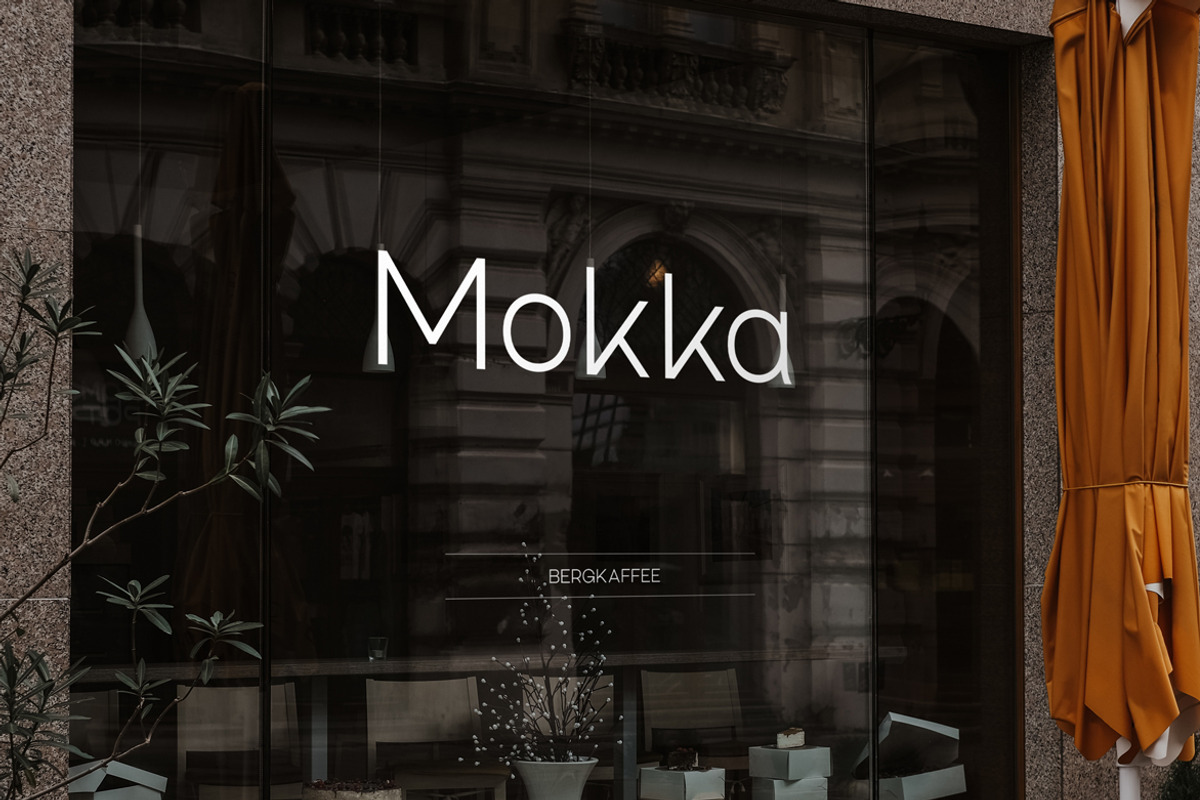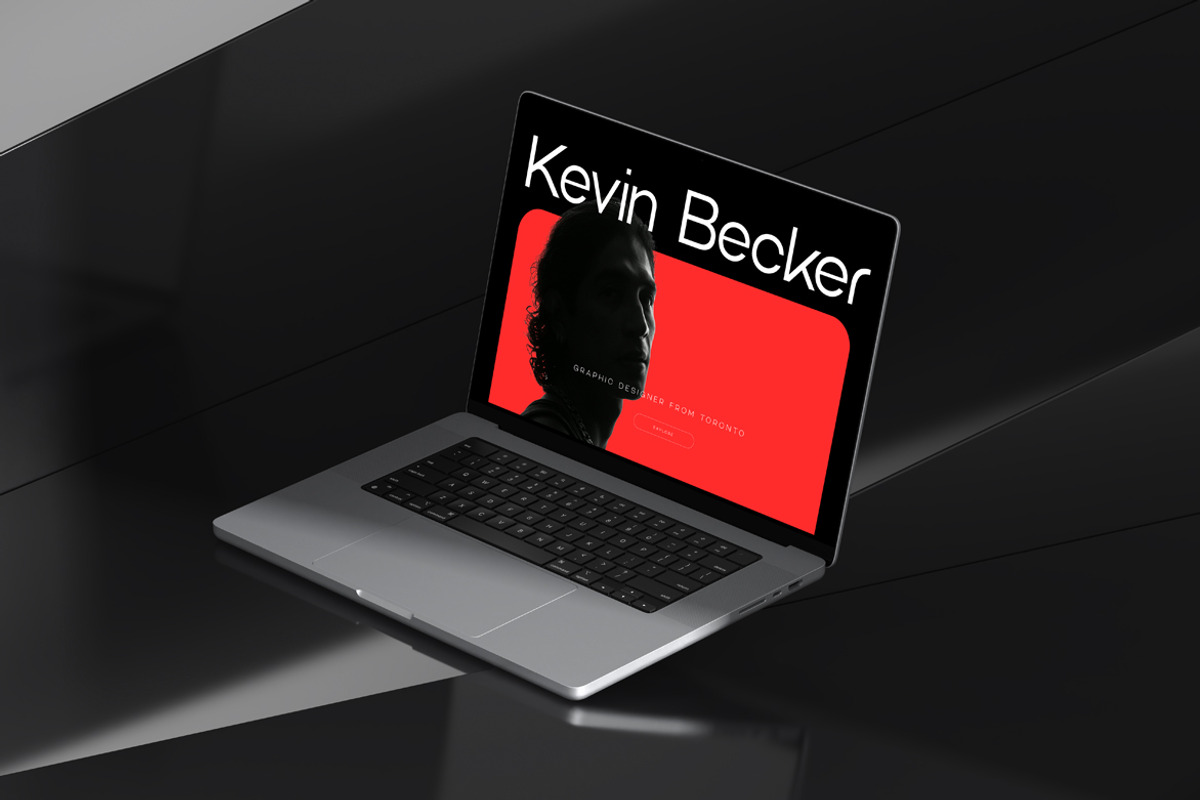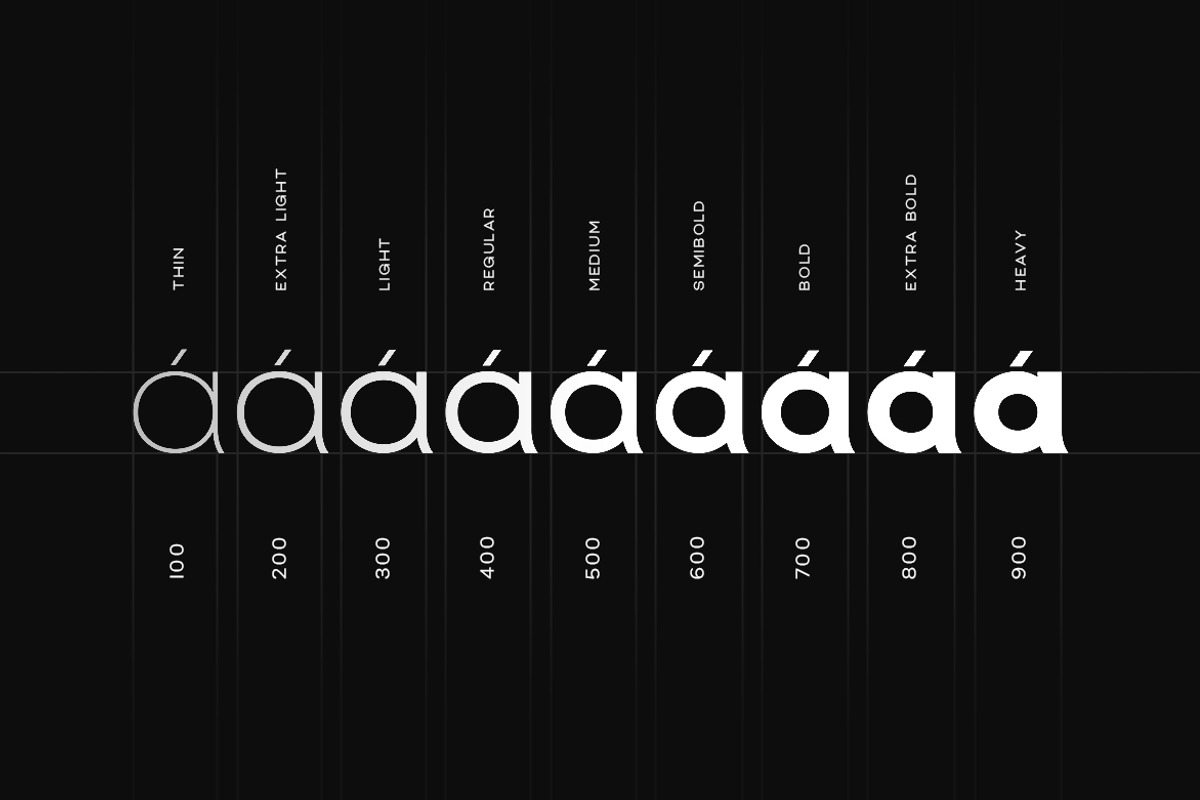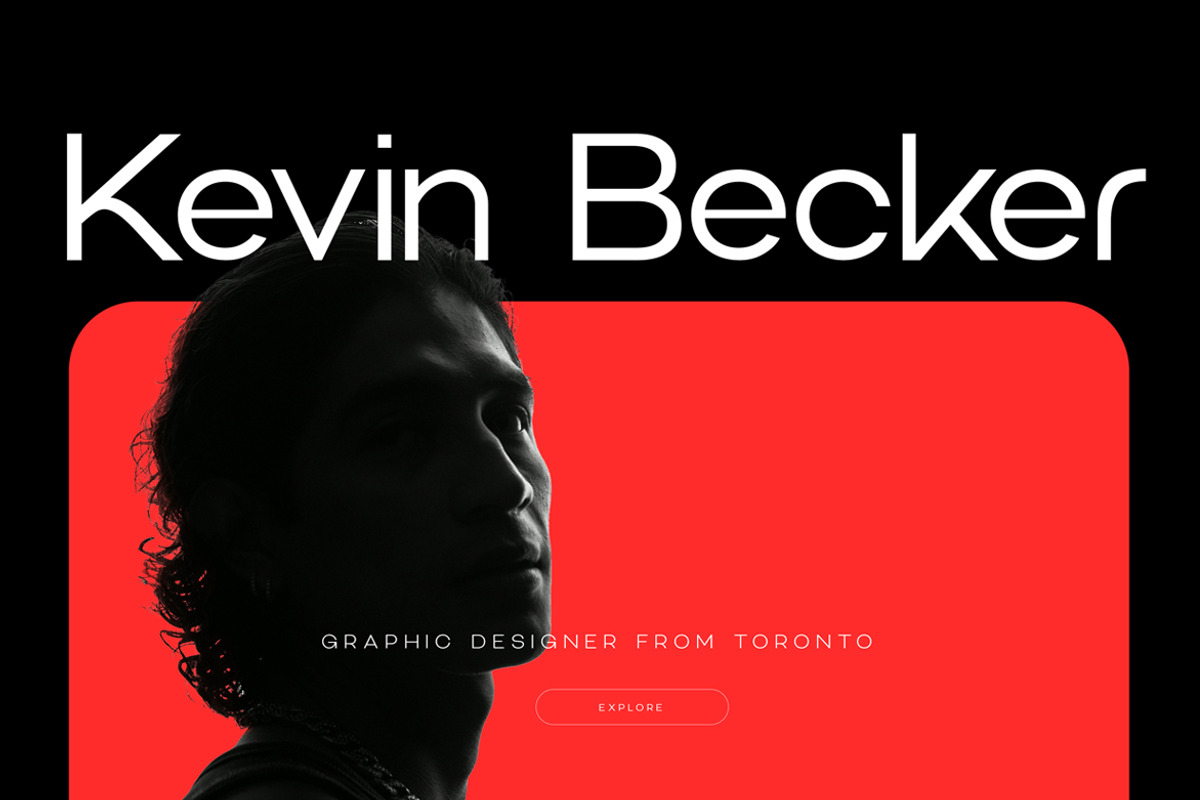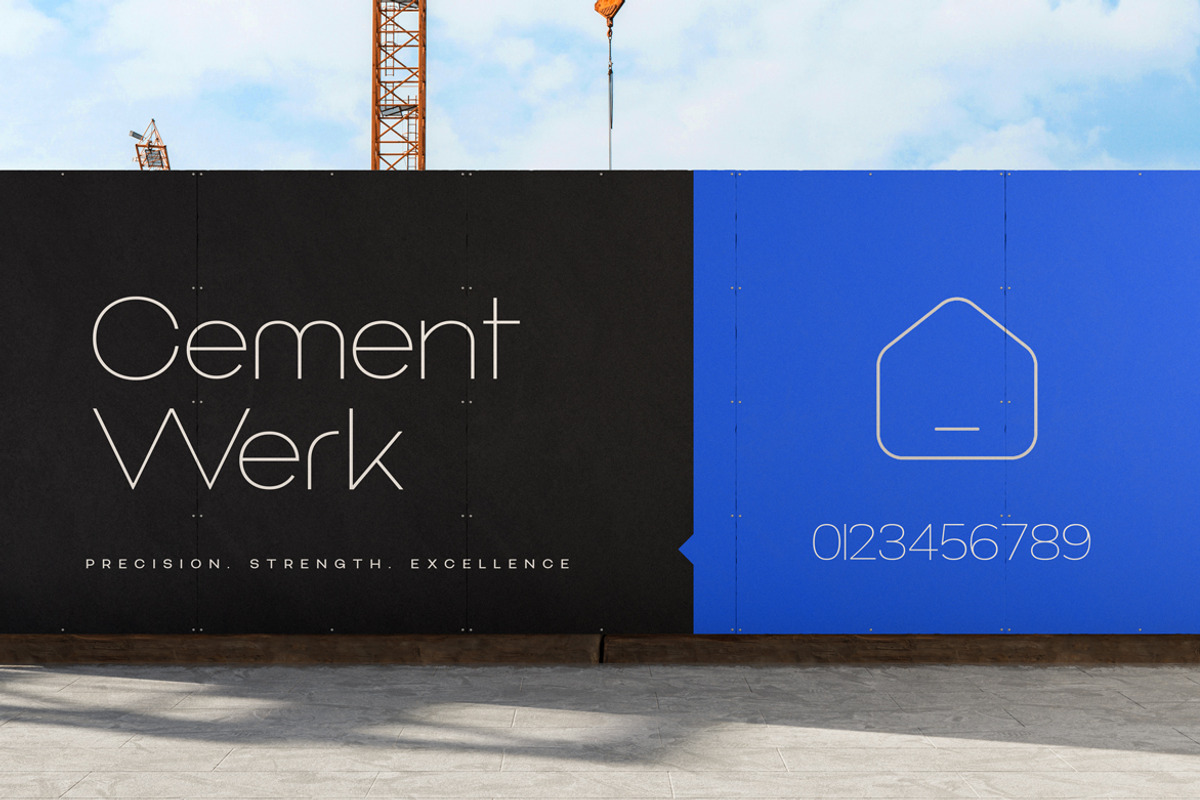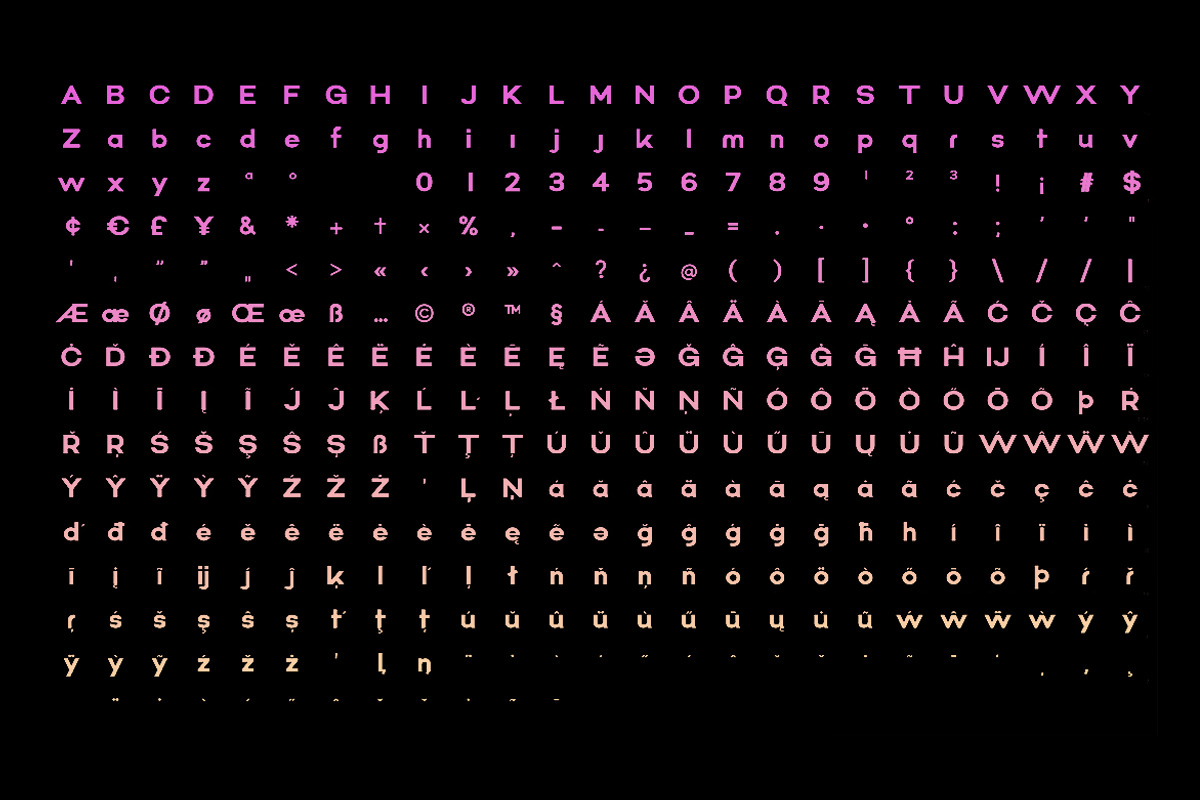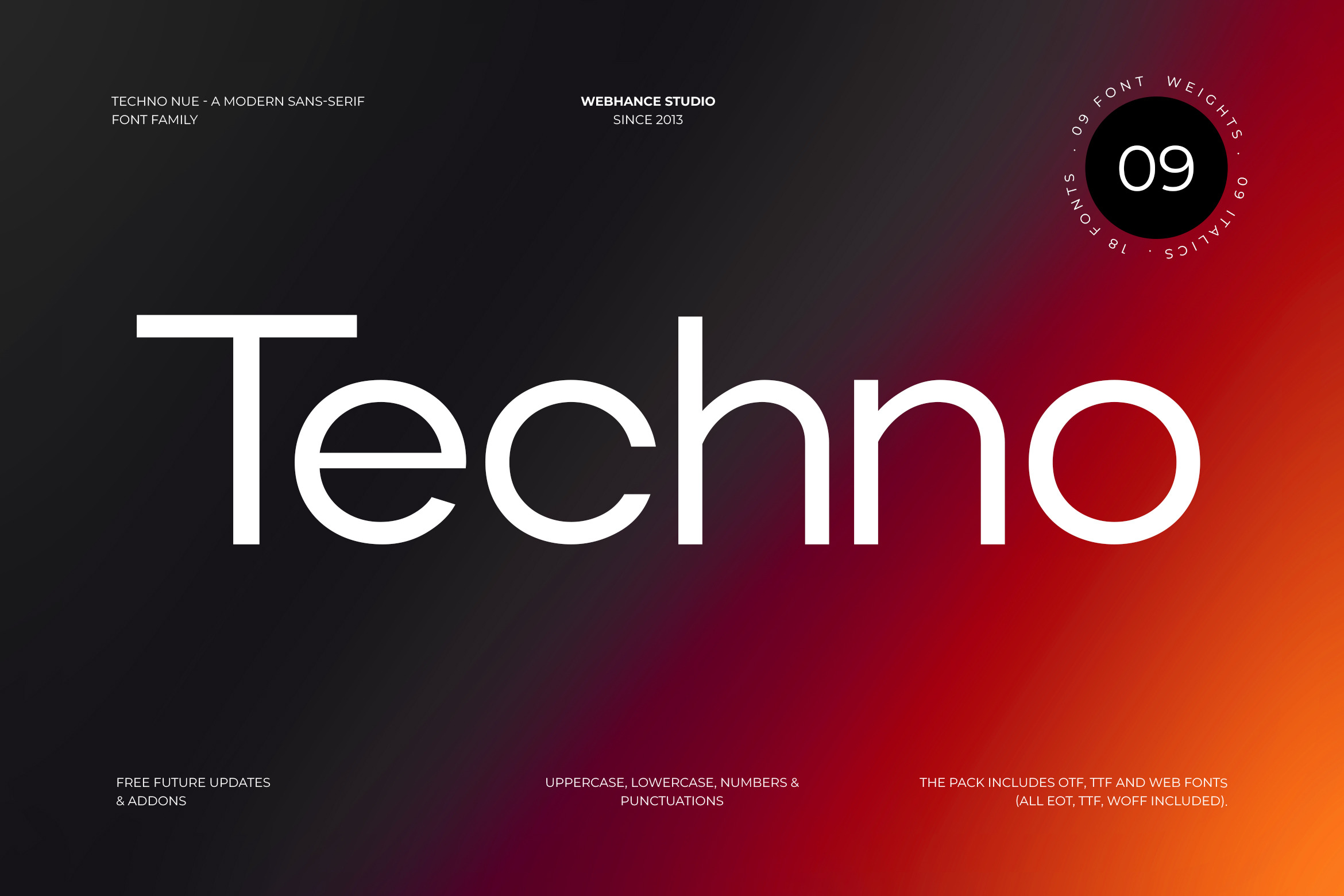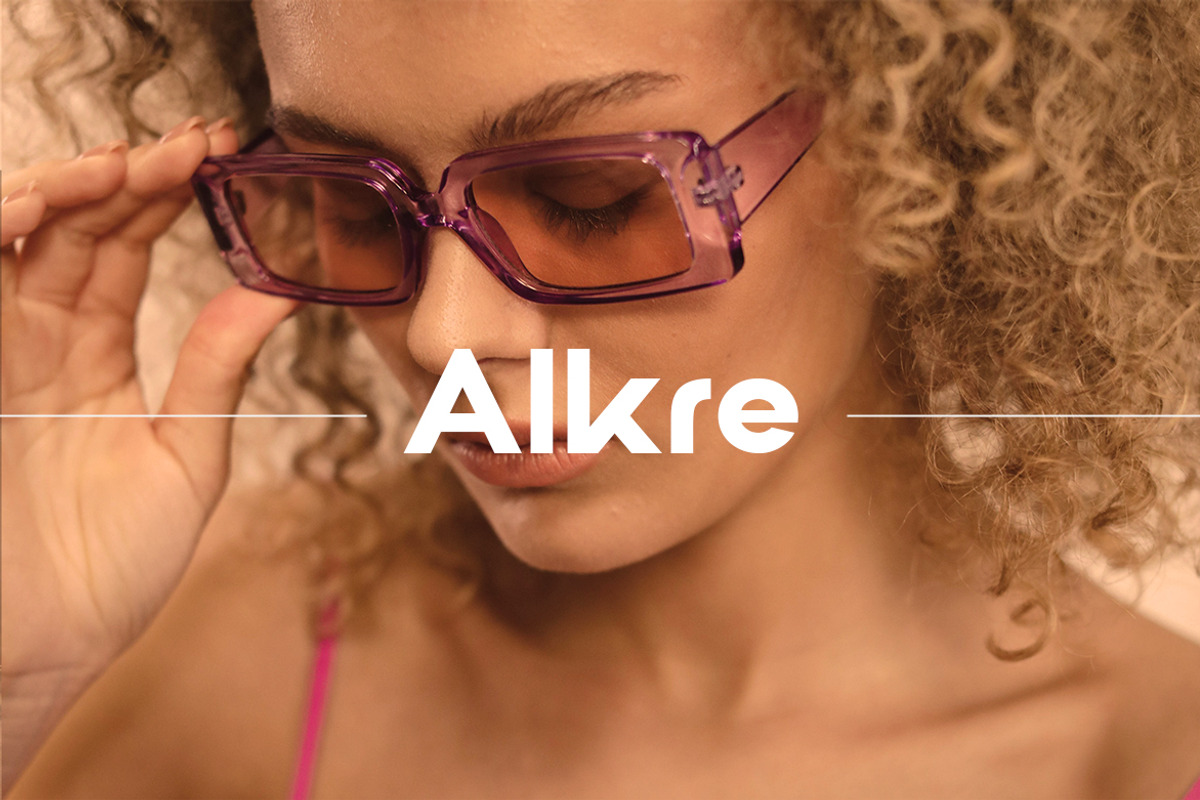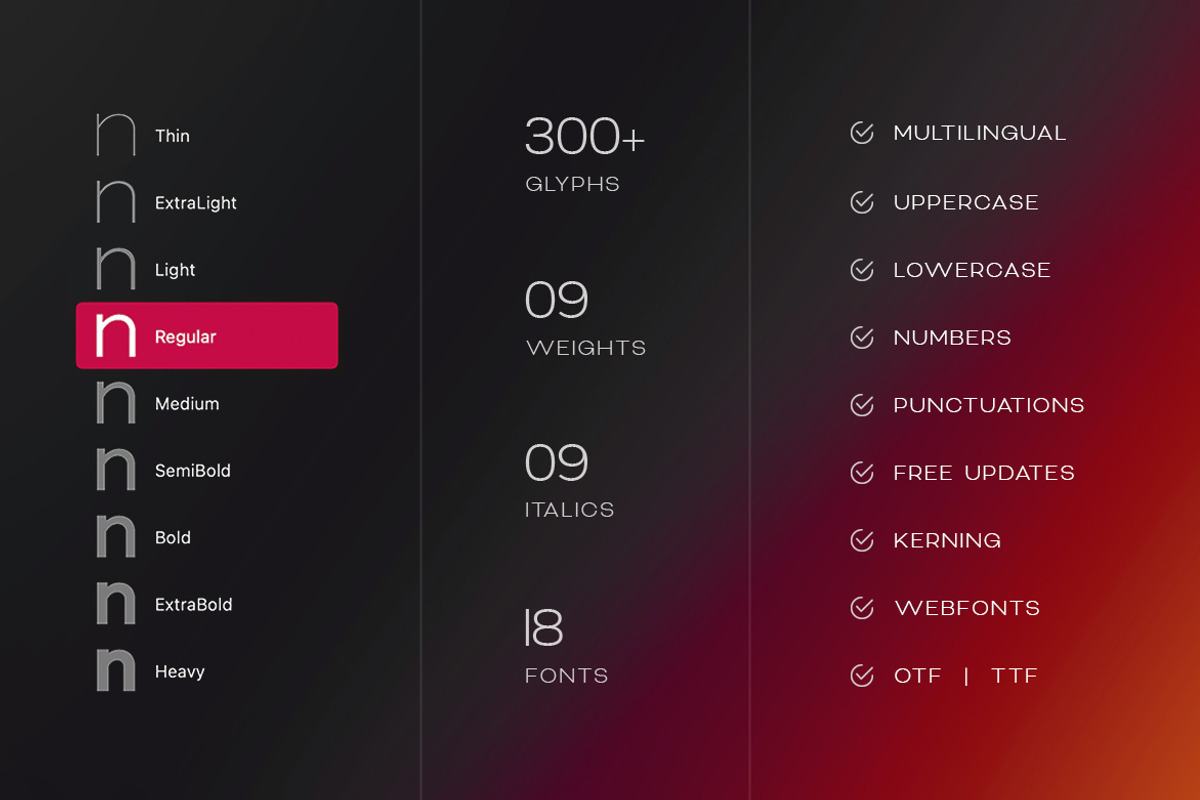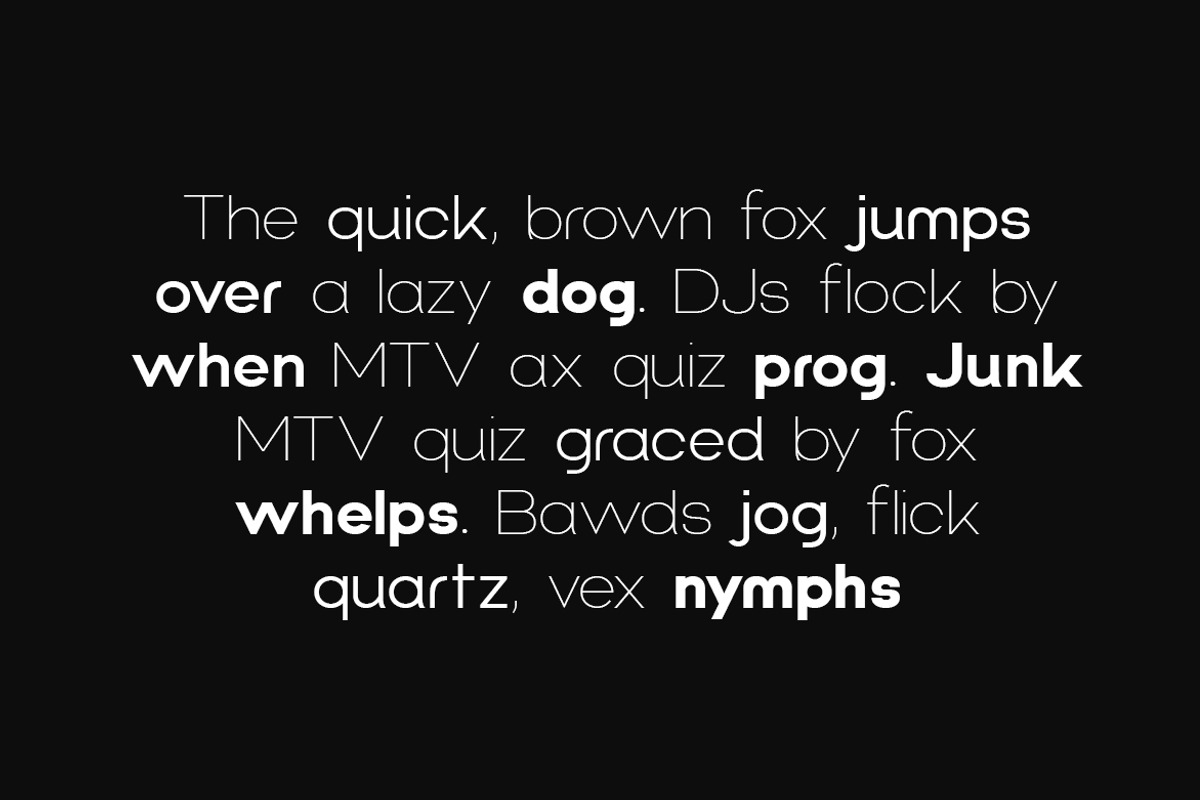
Techno Nue - Modern Sans-Serif Font
Techno Nue - A Modern Sans-Serif Font Family
Introducing Techno Nue, a sophisticated sans-serif font family meticulously crafted to enhance your design projects with its modern aesthetic and minimalist sensibility. With 9 meticulously designed weights ranging from the delicate Thin to the commanding Heavy—alongside their corresponding italics, Techno Nue offers a total of 18 fonts to meet all your design needs.
This font is suitable for branding, logo creation, web design, poster design, Instagram visuals, social media posters, text for reels, video infographics, YouTube thumbnails, and more. Each weight is carefully optimized for both print and digital media, ensuring seamless integration across various platforms. Elevate your designs with Techno Nue's clean lines, impeccable legibility, and contemporary flair.
Specification
- Multilingual Font
- Uppercase letters
- Lowercase letters
- 09 Weights
- 09 Italics
- 18 Fonts Included
- 300+ Glyphs
- 18 Fonts Included
- Punctuations